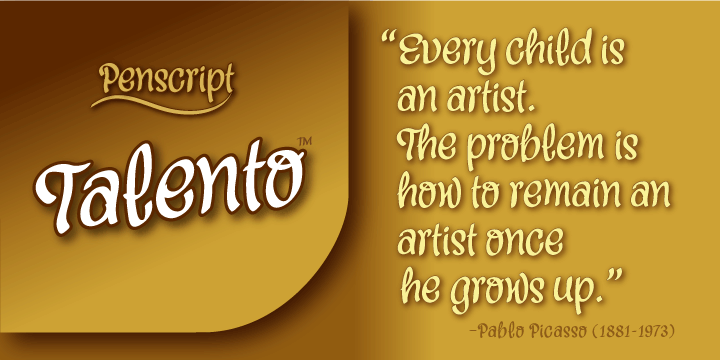
Flat-pen, suitable for quick notes and display work, relaxed yet dignified.
Uses include: posters, titles, book covers, greeting cards, signs, packaging, invitations, advertising.